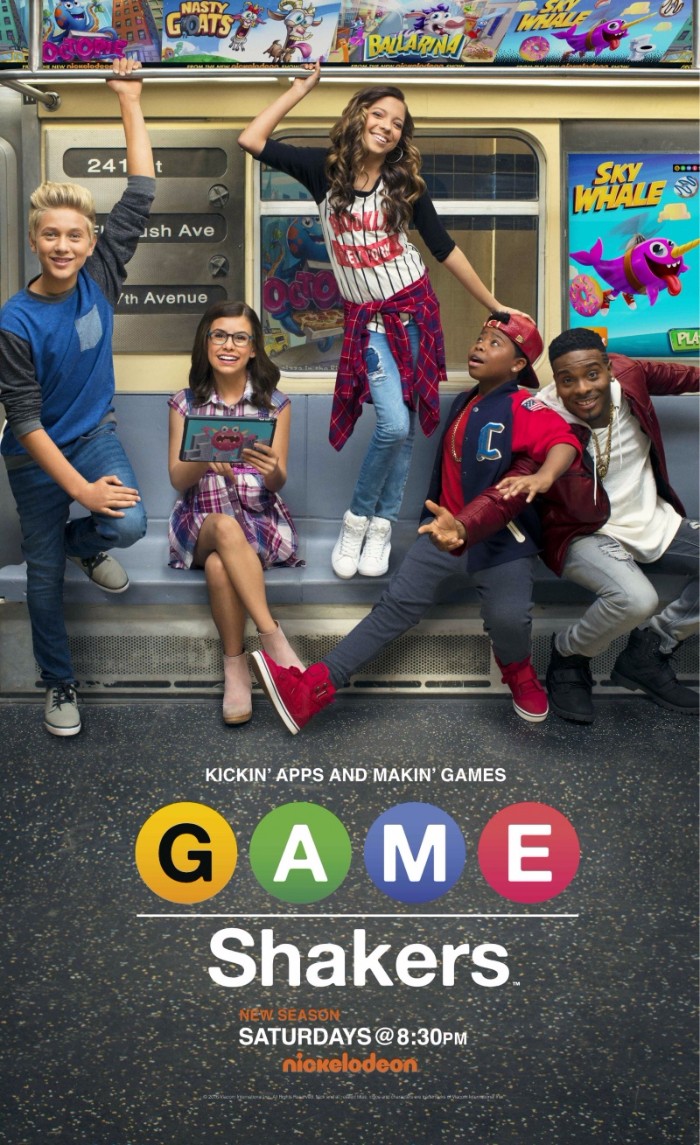
Game Shakers Font
ComedyGame Shakers is a Nickelodeon television series that premiered in 2015. The show follows the lives of two friends who start a successful gaming company and the hijinks that ensue.
The title of the TV series features a font that closely resembles Alte Haas Grotesk Bold, created by Yann le Coroller. This friendly-looking, grotesque sans serif font is available for free for both personal and commercial use and can be downloaded from the Fonts Used Section.